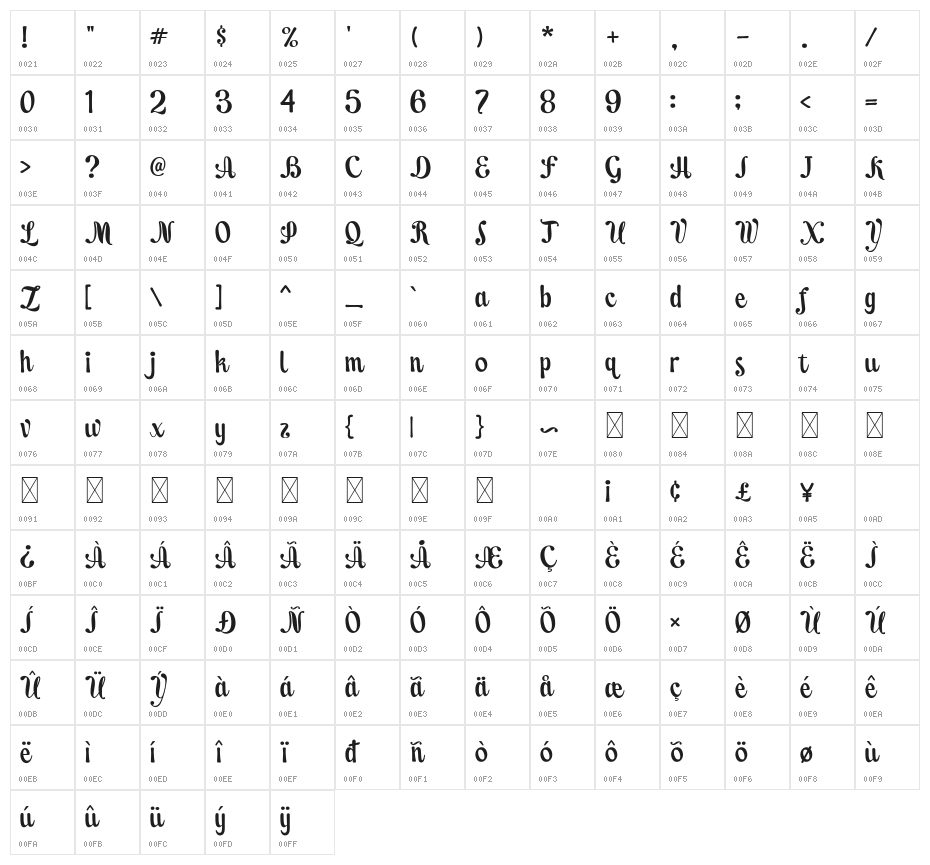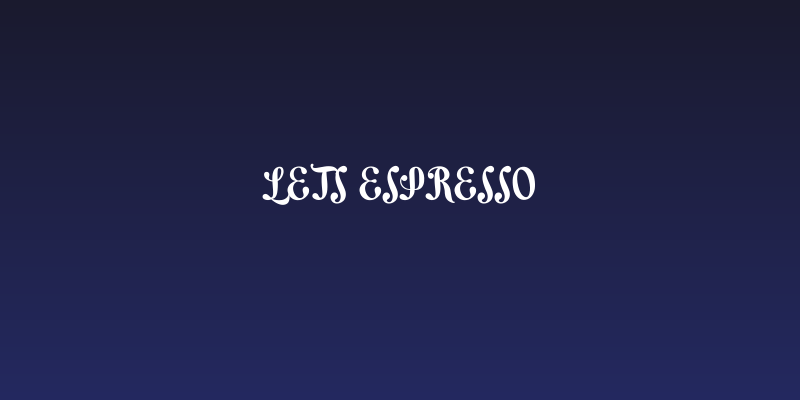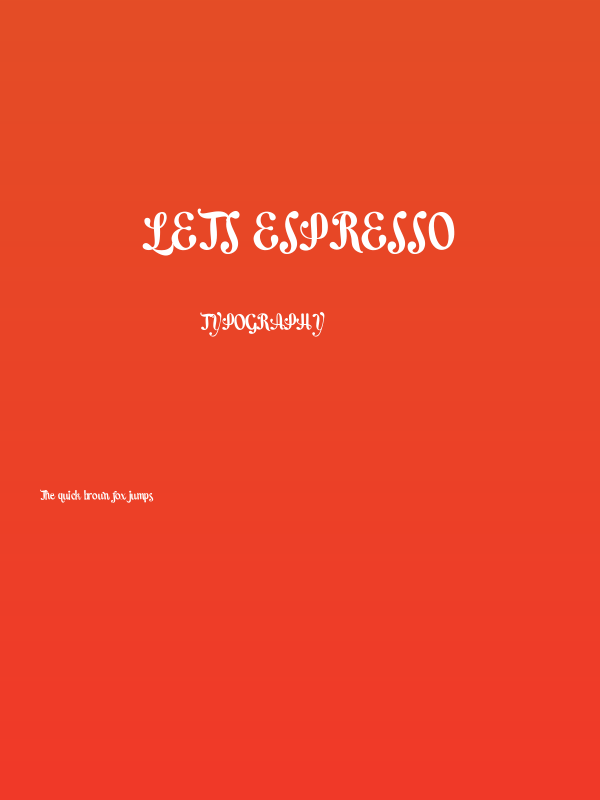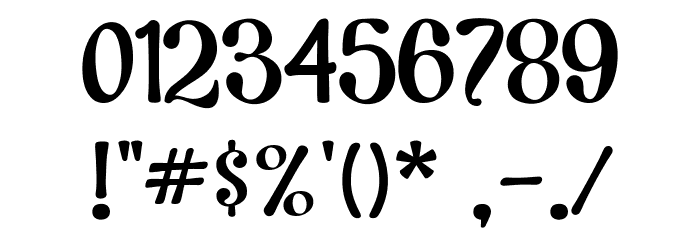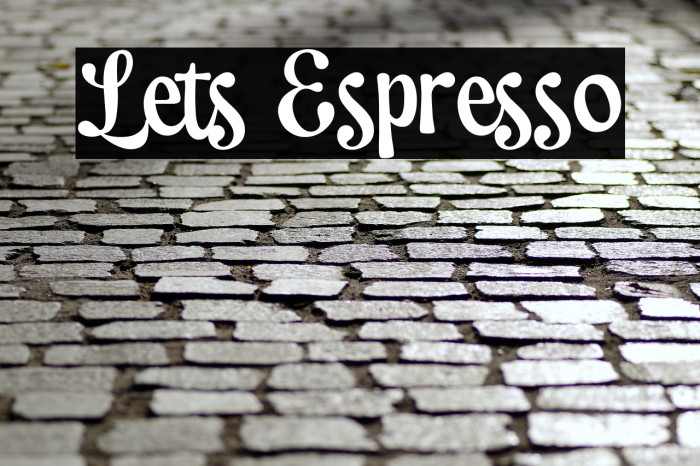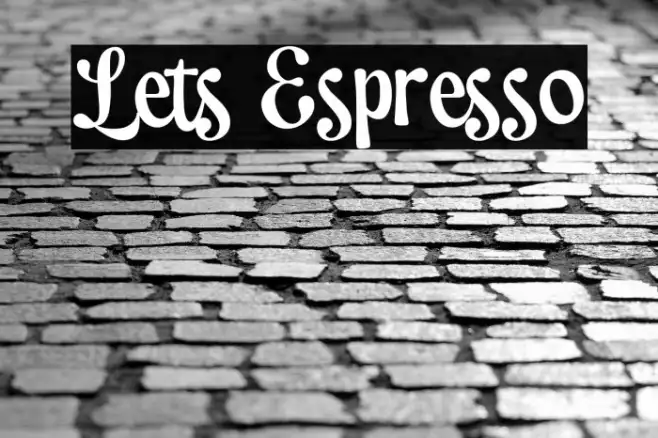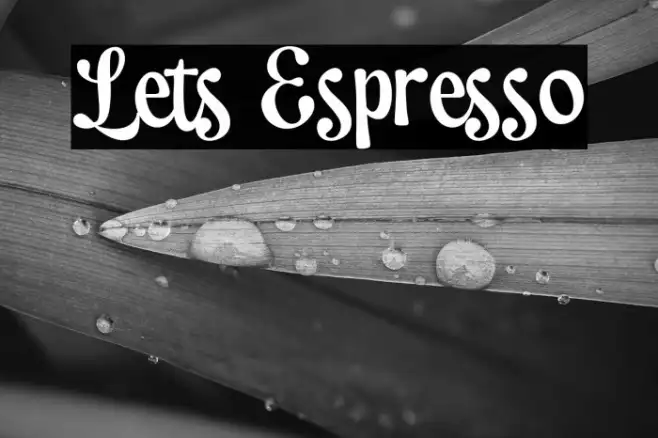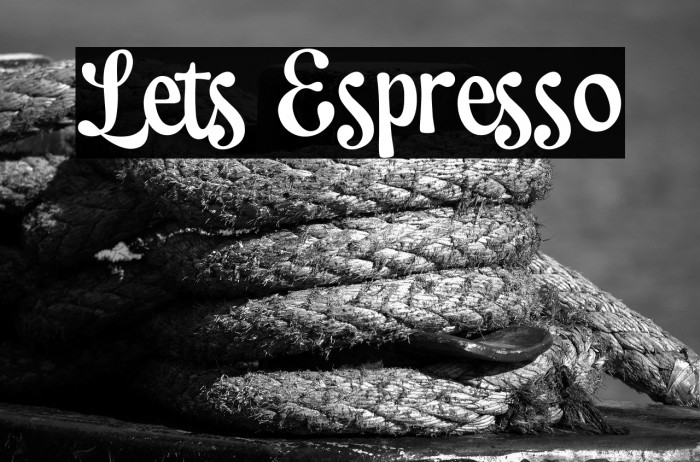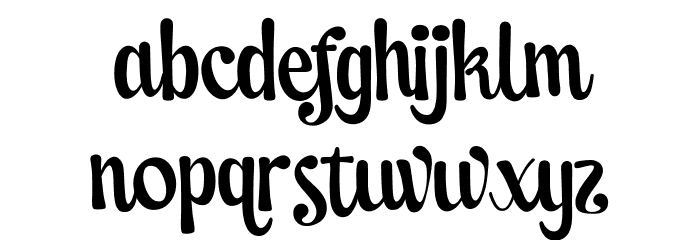
Lets Espresso Font
Lets Espresso Description
This font features a playful and whimsical design, characterized by its bold and flowing script style. The letters are crafted with smooth curves and rounded edges, giving it a friendly and approachable appearance. The uppercase letters are particularly decorative, with unique flourishes and loops that add a touch of elegance. The lowercase letters maintain a consistent style, complementing the uppercase with their own subtle embellishments. Numbers and special characters are designed to match the overall aesthetic, ensuring a cohesive look across all text. This font exudes a sense of fun and creativity, making it ideal for projects that require a lively and engaging typeface.
| Proposed Projects | Ideal for greeting cards, invitations, branding, and playful design projects. |